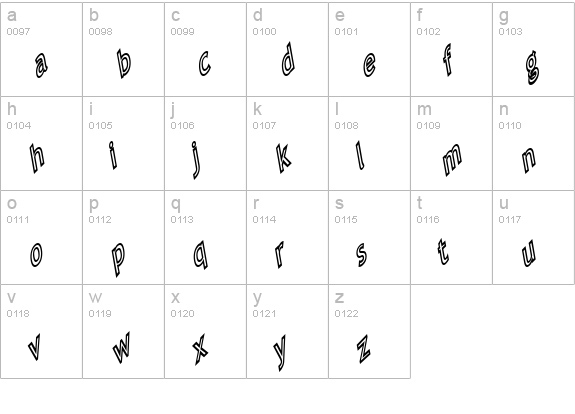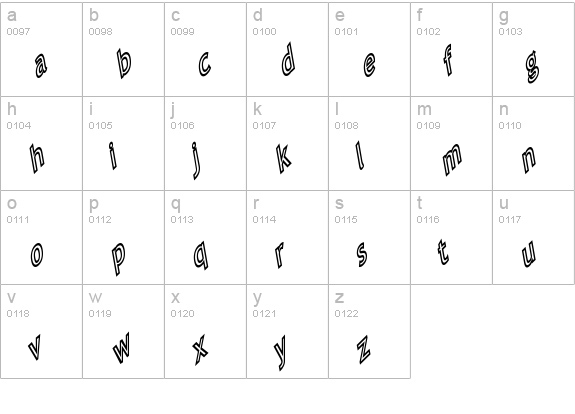
Tip Me Cheapy Font Details
Introducing the Tip Me Cheapy font, a whimsical and playful typeface that is sure to bring a smile to your designs. This delightful font is perfect for adding a touch of fun and charm to any project, whether it be a logo, website, or invitation. With its quirky and hand-drawn letterforms, Tip Me Cheapy is the epitome of creativity. Its unique design features uneven strokes and playful curves that give it a distinctive and organic look. Each character has been carefully crafted to capture the essence of childlike innocence and imagination. But what makes Tip Me Cheapy even more special is that it is available for free! Yes, you heard that right. This incredible font can be yours without spending a penny. Simply head over to FontsMarket.com and download it freely, unlocking a world of endless creative possibilities. Whether you are a professional designer or a hobbyist, Tip Me Cheapy will undoubtedly become your go-to font for projects that require a touch of quirkiness. Its versatility allows it to shine in a variety of design settings, from playful children's books to vibrant advertisements. So why wait? Embrace the creative spirit and unleash your imagination with Tip Me Cheapy. Download this delightful font for free at FontsMarket.com and discover the joy of adding a little whimsy to your designs.